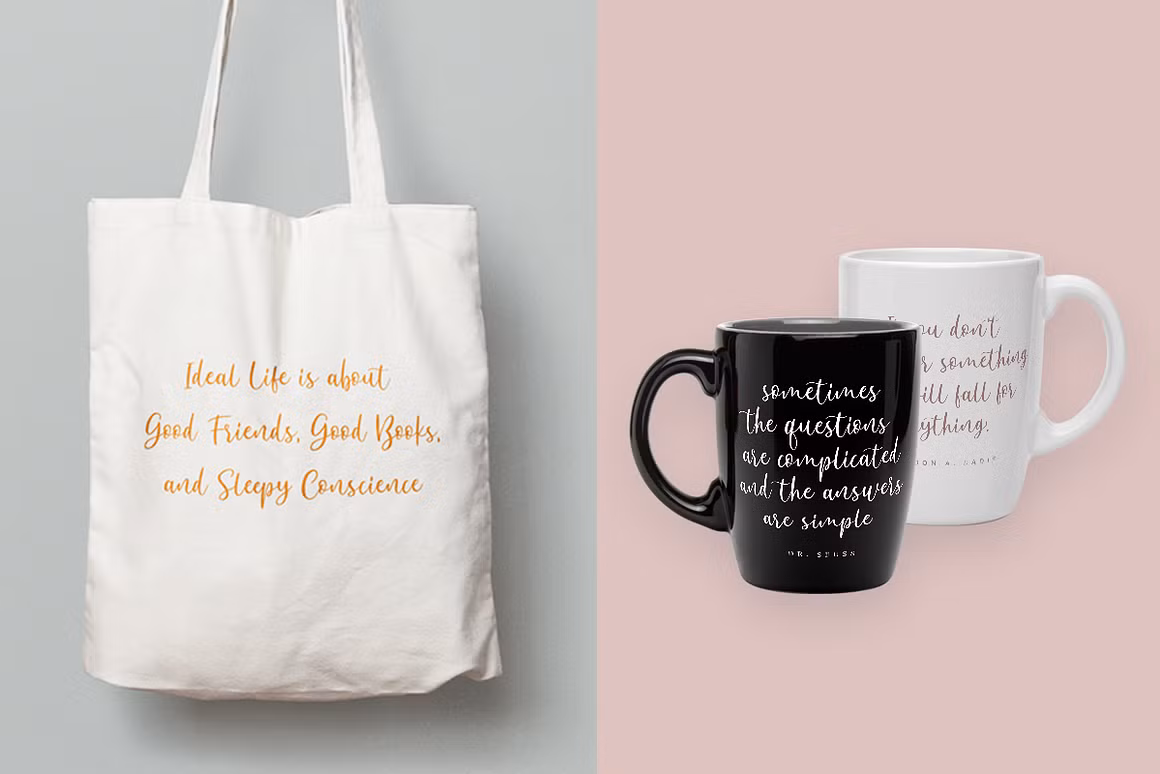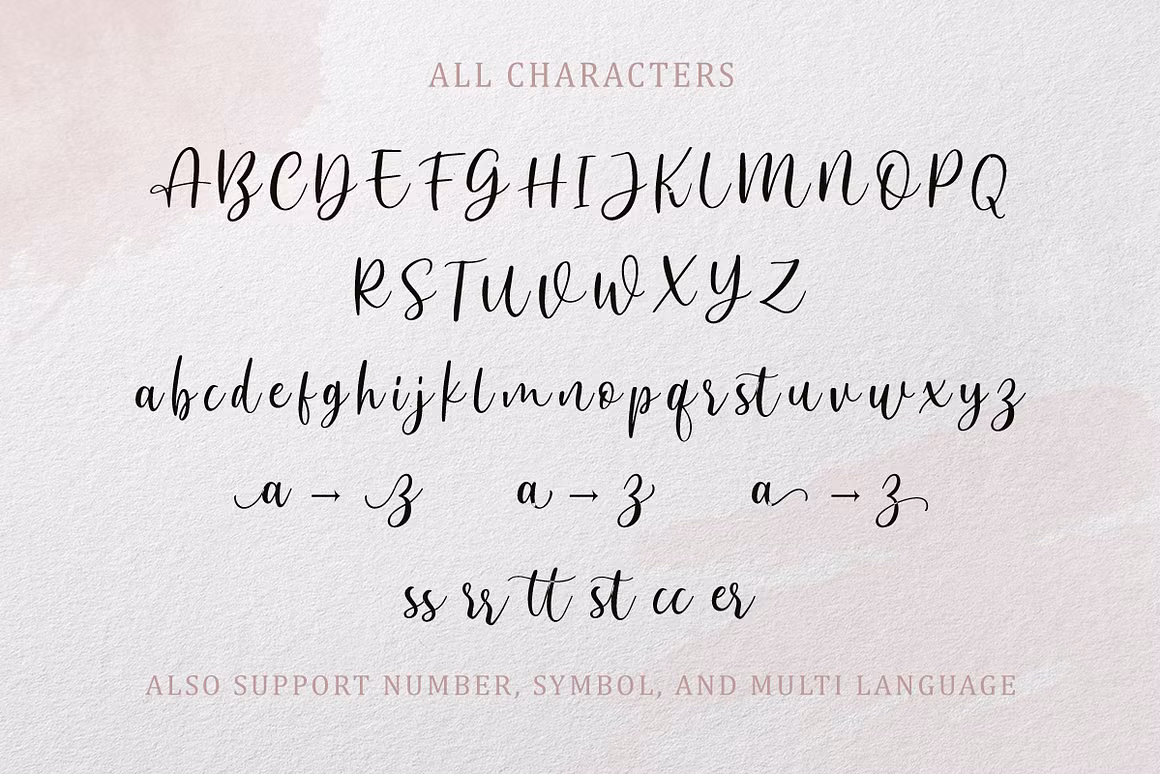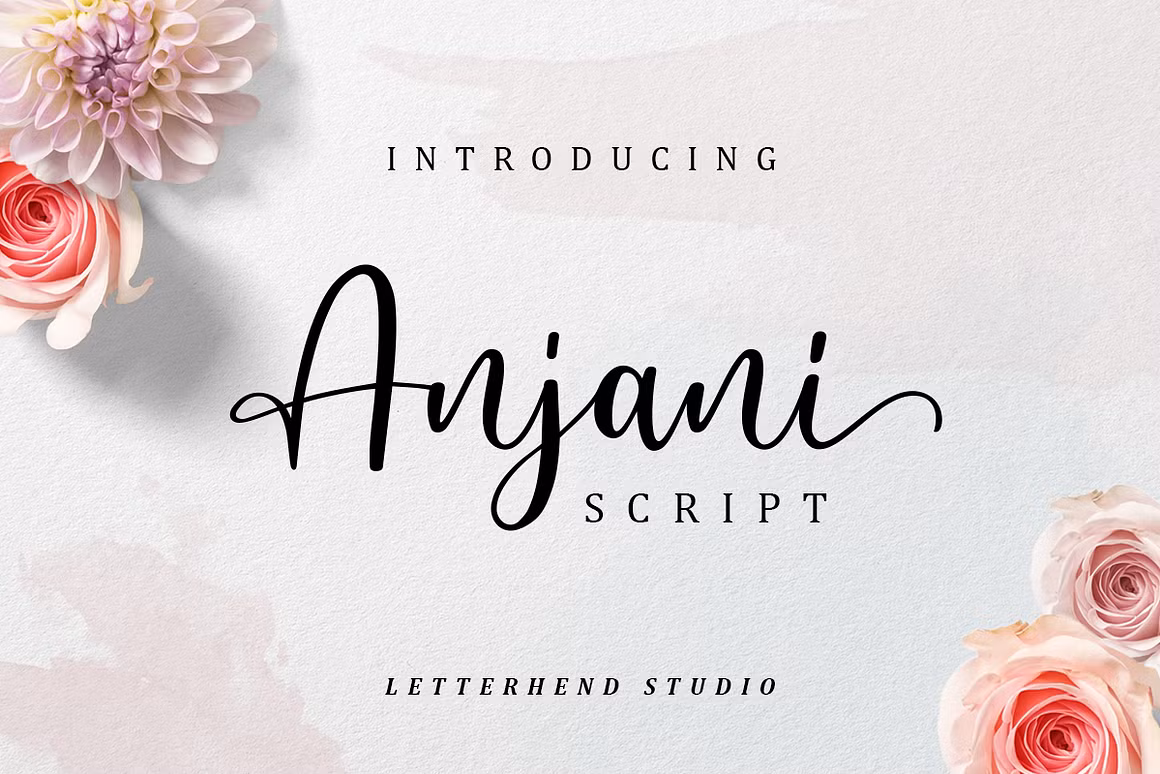
Anjani Font
Introducing Anjani, a modern calligraphy script that contains the romantic feeling that everyone wants. This typeface called โ€˜Natural hand writing โ€™ script is good for you, who looking for the typeface for Headline, logotype, apparel, invitation, branding, packaging, advertising and etc. This typeface is available in uppercase, lowercase, punctuations, symbols & numerals, stylistic set alternate, ligatures, and so on also support multilingual and already PUA encoded.
Anjani Handwritten Font